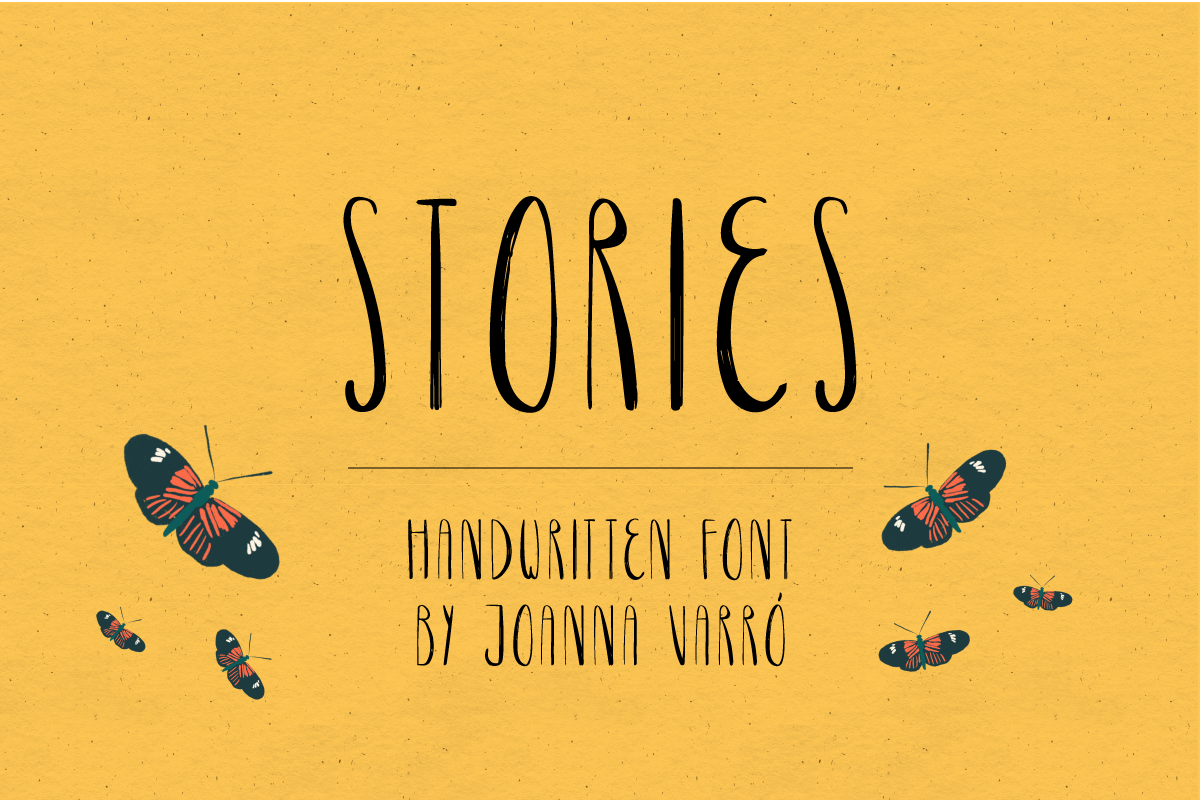
Stories Handwritten Condensed Font
Handwritten font inspired by parent’s stories and their children. It is an uppercase, condensed font with a handmade feeling. It will be a great fit for children’s books and crafts. It works great for logos, posters, book covers, headlines, t-shirts and much more.